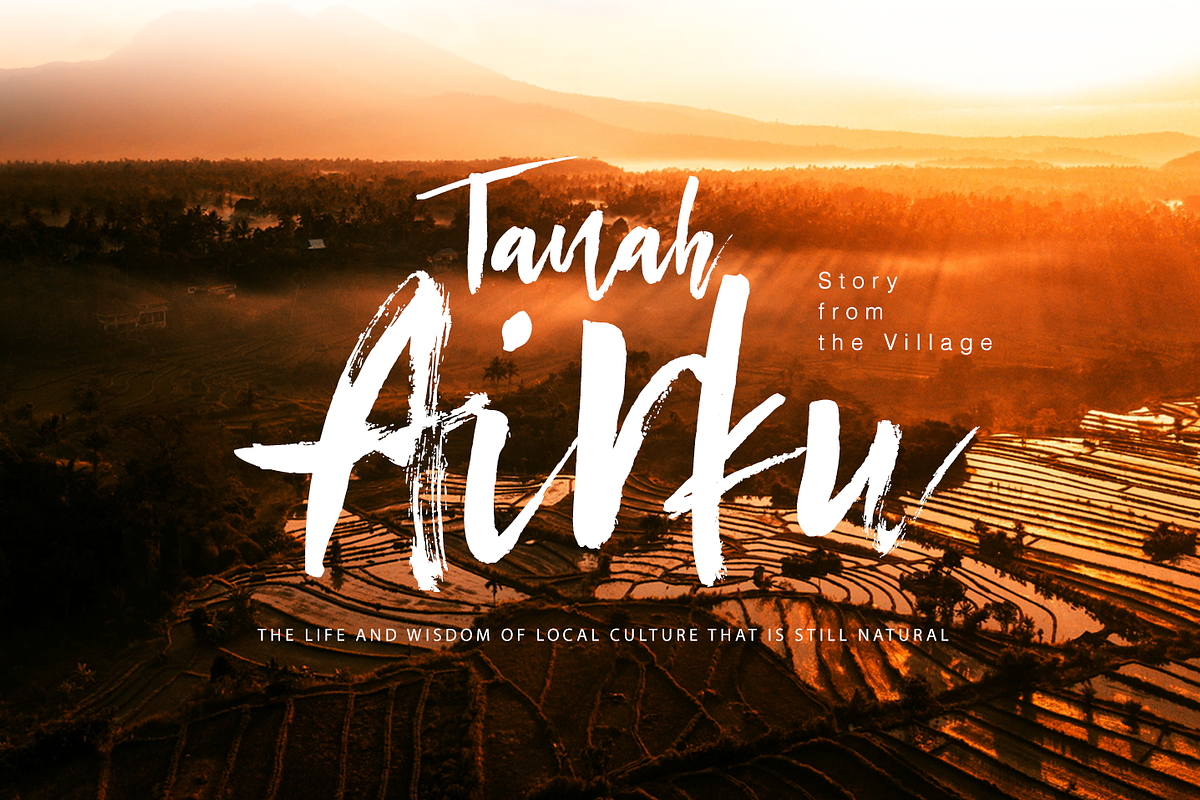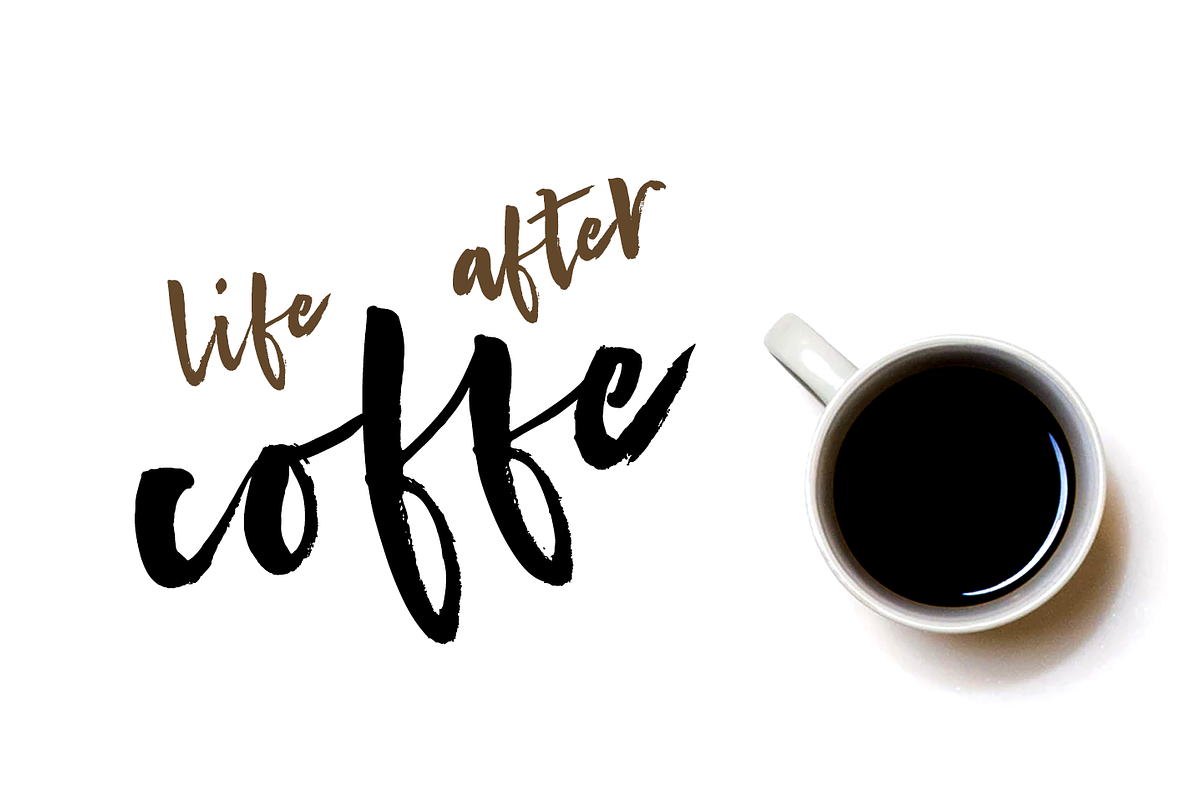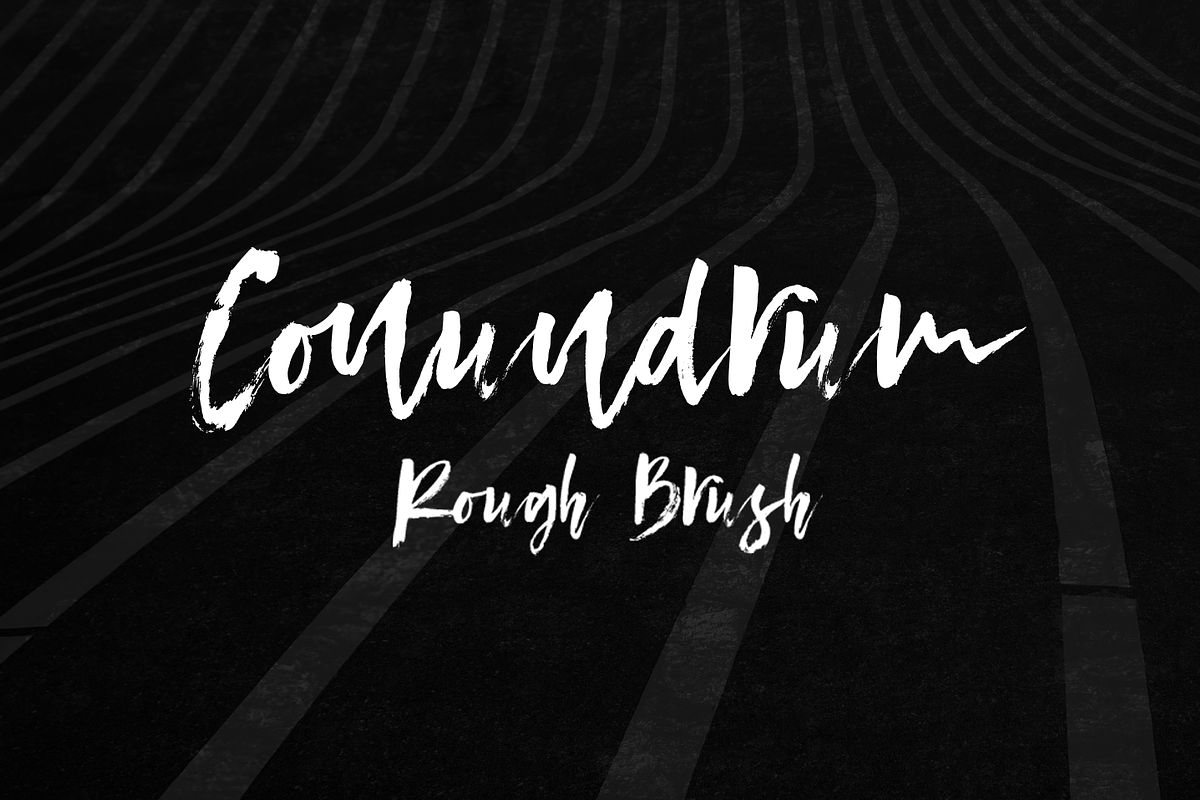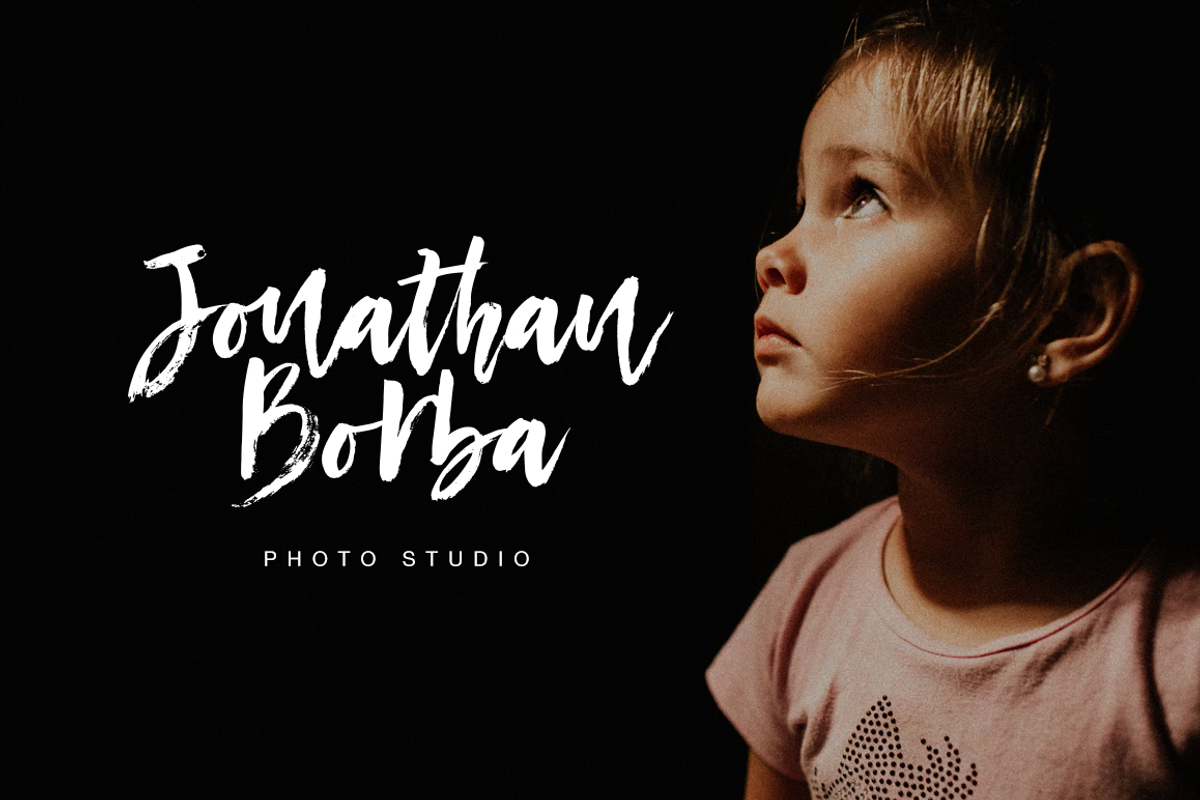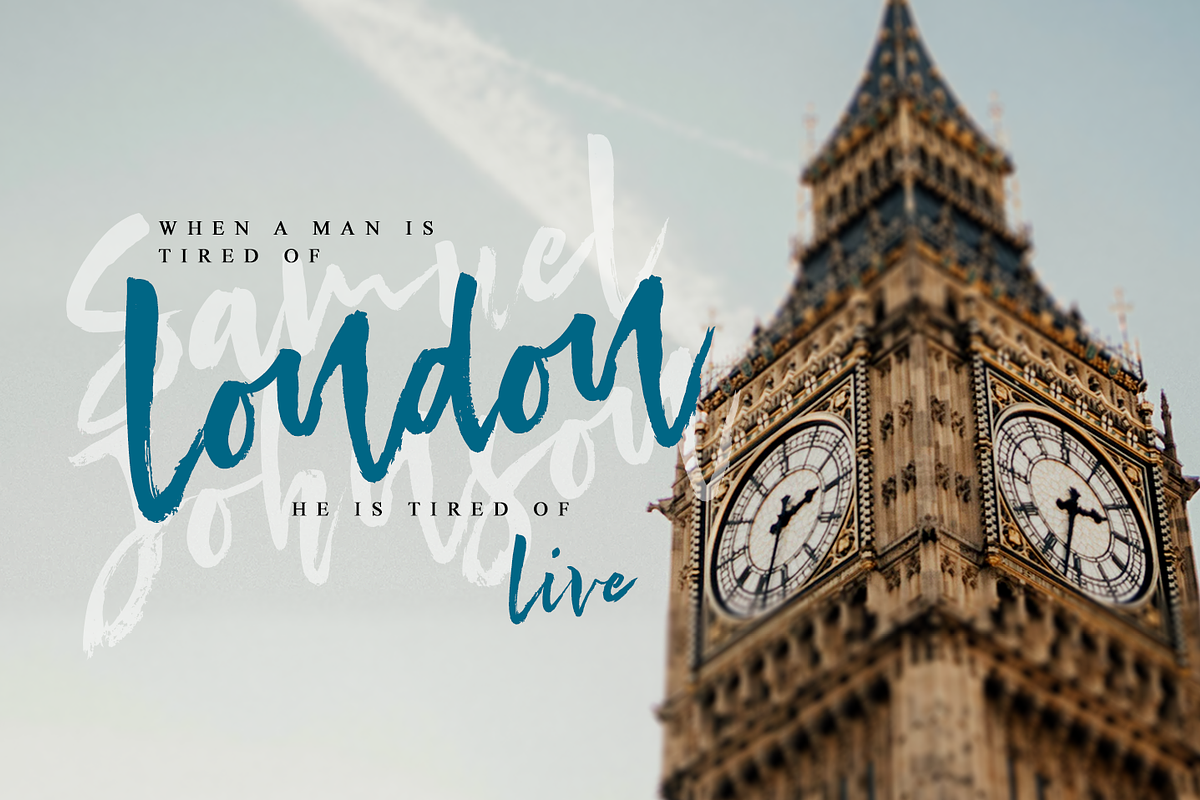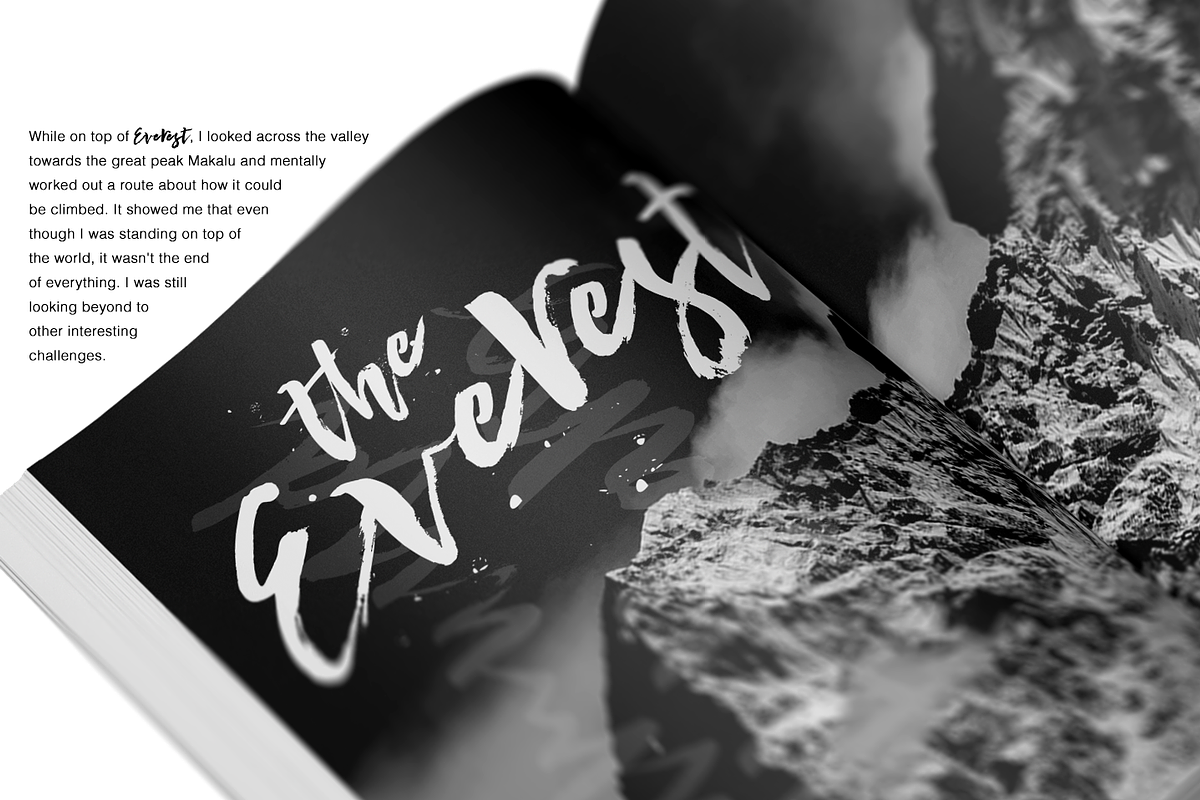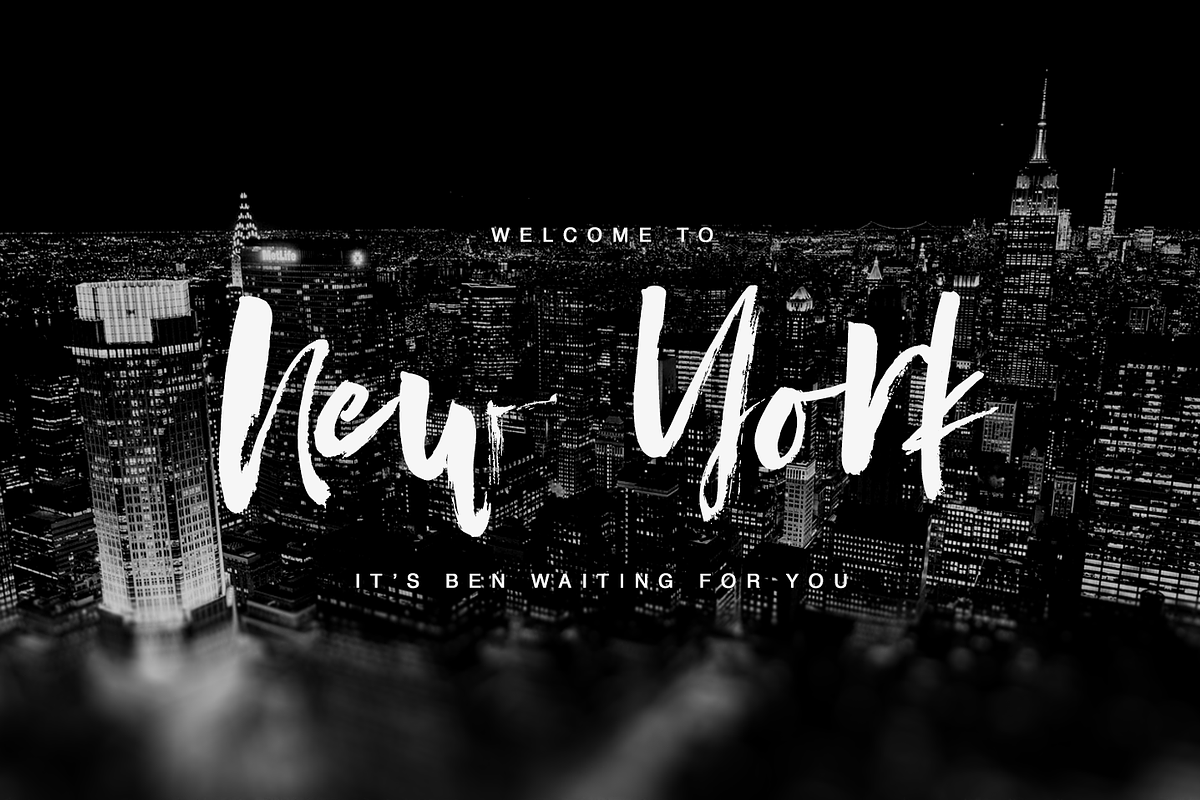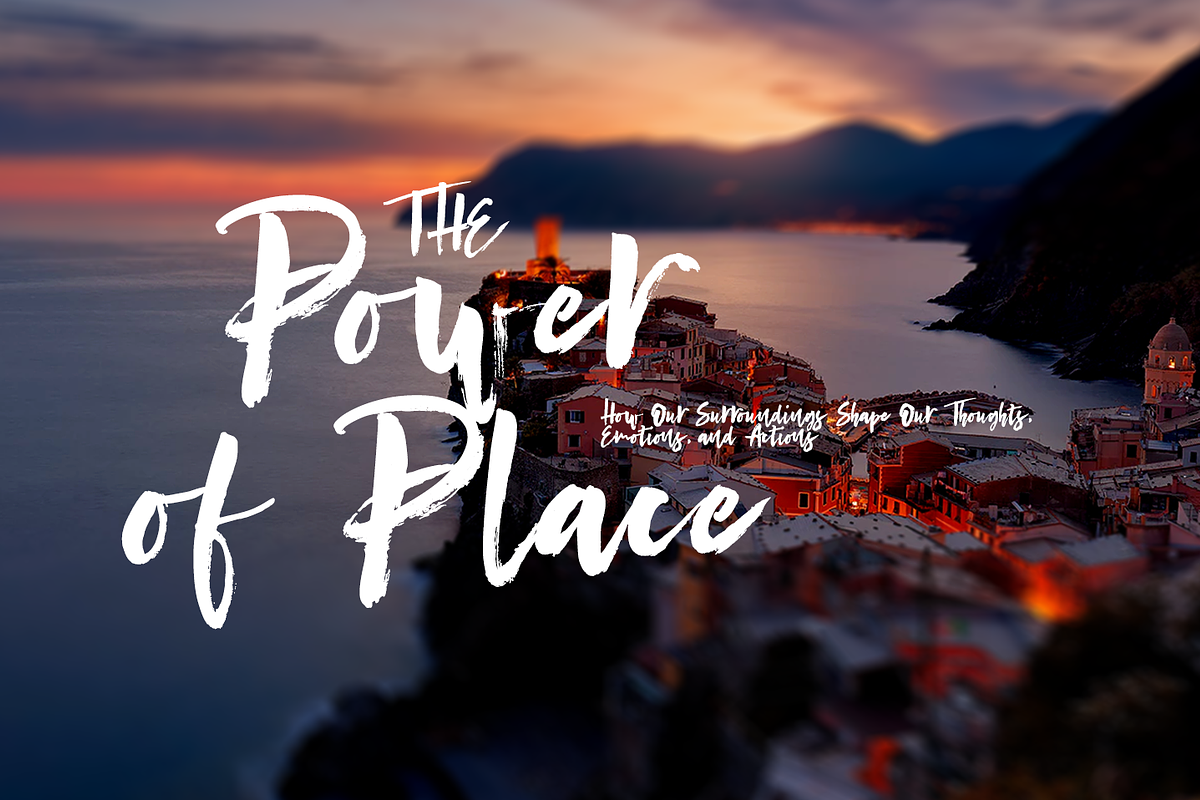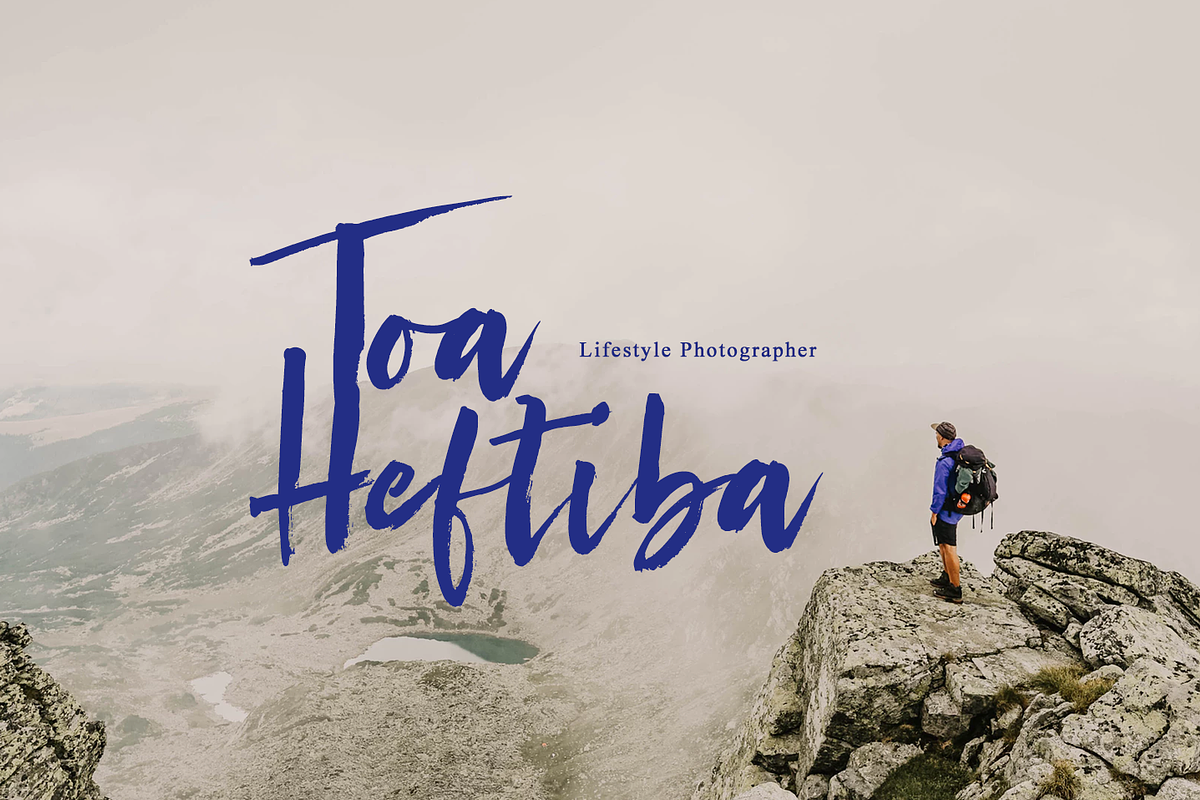
Conundrum
Conundrum is a cool, rough brush font, quickly painted on paper, so it looks natural, organic. If you want a font character that is unique and different than others, Conundrum is worth your try.